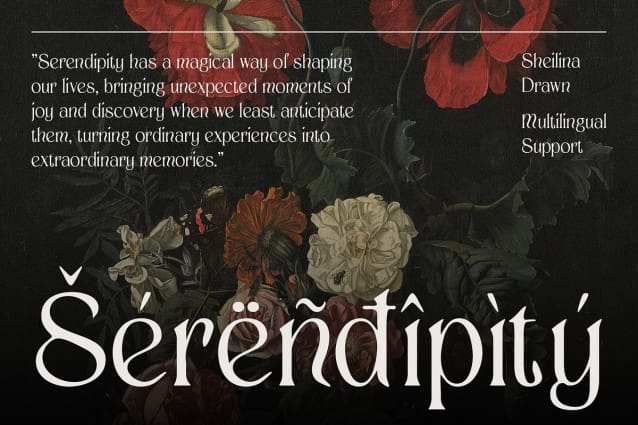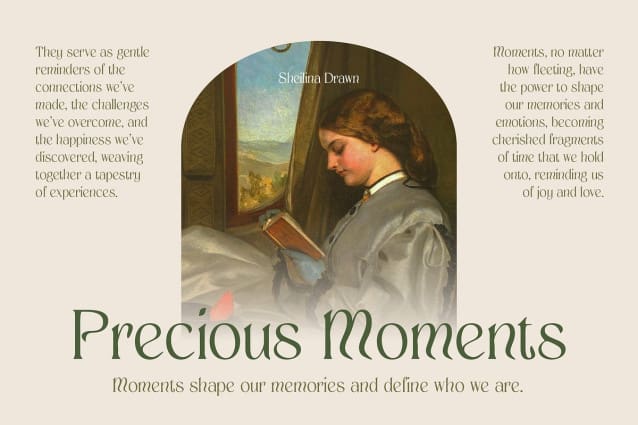
Sheilina Drawn Font
Sheilina Drawn Font is a modern display serif font inspired by the graceful, flowing lines of Art Nouveau, offering a perfect balance of elegance and intricate detail. The elegant curves and decorative flourishes within each letter evoke a sense of sophistication and beauty, making this typeface ideal for projects seeking a refined and luxurious aesthetic.
Handcrafted with Organic Detail The hand-drawn effect enhances the font’s organic and fluid design, giving it a unique, handcrafted charm. Each letterform is carefully designed with artistic elegance, resulting in a highly distinctive and expressive look that stands out. The flowing curves, paired with intricate detailing, add a layer of depth and creativity, making this font both visually captivating and refined.
Perfect for High-End Branding and Luxury Editorial Work Sheilina Drawn excels in high-end branding, luxury editorial designs, and any project that demands an artistic, sophisticated touch. Whether used in logos, invitations, fashion magazines, or upscale promotional materials, this font brings a sense of elevated elegance, perfectly suited for brands looking to make a lasting impression.